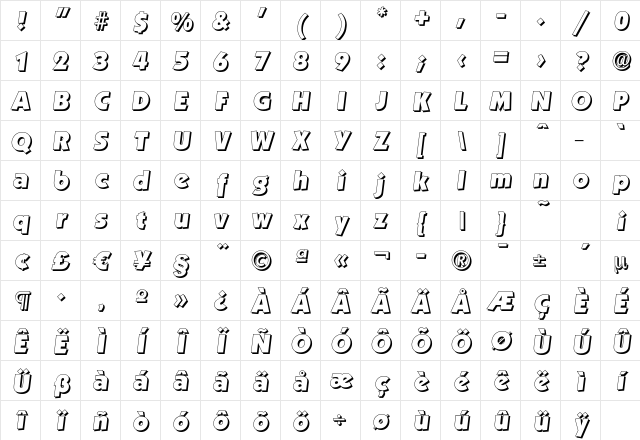
KoblenzDropShadow-Heavy Italic
Design Context for KoblenzDropShadow-Heavy
KoblenzDropShadow-Heavy is built around its visual character rather than neutral utility - its distinctive forms are designed to make an impression at display sizes. The slanted form adds forward momentum and visual energy.
Font Pairing: Pair with a clean neutral sans-serif for body copy to let KoblenzDropShadow-Heavy's character lead without overwhelming the composition.
Pro Tip: Use KoblenzDropShadow-Heavy exclusively at display sizes - it was designed to be seen, not read at length. Let a neutral companion handle body copy.